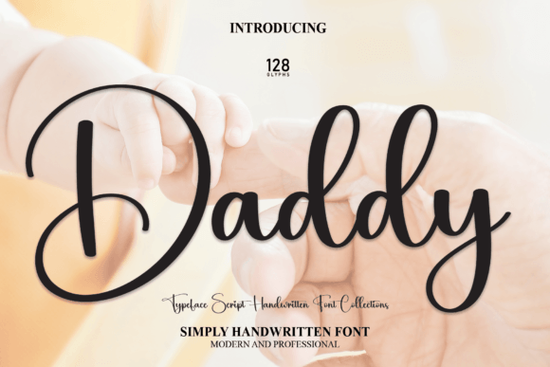
If you're looking for a handwritten script font that feels warm, personal, and full of charm, the Daddy Font might be exactly what your next project needs. Designed with soft curves and gentle flow, this font brings a joyful and romantic touch to everything from greeting cards to wedding invitations, baby announcements, or even custom apparel. It’s especially popular among crafters and small business owners who want their designs to feel handcrafted and heartfelt.
Unlike stiff or overly formal typefaces, Daddy Font mimics natural handwriting think of the kind of note you’d tuck into a lunchbox or write on a gift tag. That authenticity makes it ideal for projects where emotion and personality matter most. Whether you’re designing for print-on-demand products, social media graphics, or handmade stationery, this font adds a layer of sincerity without overwhelming your layout.
What kinds of projects work best with Daddy Font?
Because of its sweet, approachable style, Daddy Font shines in contexts that celebrate relationships, milestones, and everyday tenderness. Here are a few ideas:
- Baby and parenting products – onesies, nursery wall art, milestone cards
- Personalized gifts – mugs, tote bags, photo frames with handwritten-style messages
- Wedding and event stationery – place cards, menus, thank-you notes
- Social media quotes – especially those focused on family, love, or self-care
- Handmade shop branding – logos, packaging labels, or Etsy banners for cozy, artisanal brands
Keep in mind that script fonts like this one work best when used for short phrases or headlines. For longer blocks of text, pair Daddy Font with a clean sans-serif to maintain readability.
How does it compare to other handwritten fonts?
Not all script fonts strike the same emotional tone. Some lean playful, others elegant or vintage. Daddy Font sits comfortably in the “sweet and sincere” category less flashy than I Love Glitter, more grounded than Coconut Bay, and softer than the bold flair of Heart Style. If you enjoy fonts that feel like they were written by hand with care like Stylish Handwriting or Handmade you’ll likely appreciate Daddy’s understated warmth.
You can explore how it stacks up visually by checking out Daddy Font directly on Creative Fabrica, where you’ll also find alternate characters, ligatures, and stylistic sets that add variety to your typography.
Tips for using Daddy Font effectively
To get the most out of this font, consider these practical suggestions:
- Use generous spacing. Script fonts can feel cramped if letters are too tight. Increase tracking slightly for better legibility.
- Limit uppercase use. The lowercase letters carry the font’s personality uppercase is best reserved for initials or accents.
- Pair thoughtfully. Combine with neutral, minimalist fonts (like Montserrat or Lora) to let Daddy Font take center stage without visual competition.
- Test at different sizes. While it looks lovely large on posters, ensure fine details remain clear when scaled down for stickers or tags.
Also, remember that many handwritten fonts including Daddy include contextual alternates. If your design software supports OpenType features (like Adobe Illustrator or Affinity Designer), enable them to access swashes and letter variations that make each word feel unique.
Who should consider this font?
Daddy Font is especially useful for:
- Print-on-demand sellers creating personalized family-themed merchandise
- Crafters making vinyl decals, embroidery patterns, or scrapbook elements
- Small wedding vendors designing invitations or signage with an intimate feel
- Content creators producing relatable, emotionally resonant graphics for Instagram or Pinterest
It’s not the right choice for corporate reports or tech branding but for anything that benefits from a human, loving touch, it’s a reliable go-to.
Quick checklist before using Daddy Font in your next project:
- ✅ Pair with a simple complementary font for body text
- ✅ Preview your design at actual print or screen size
- ✅ Consider adding subtle textures or watercolor backgrounds to enhance its handmade vibe